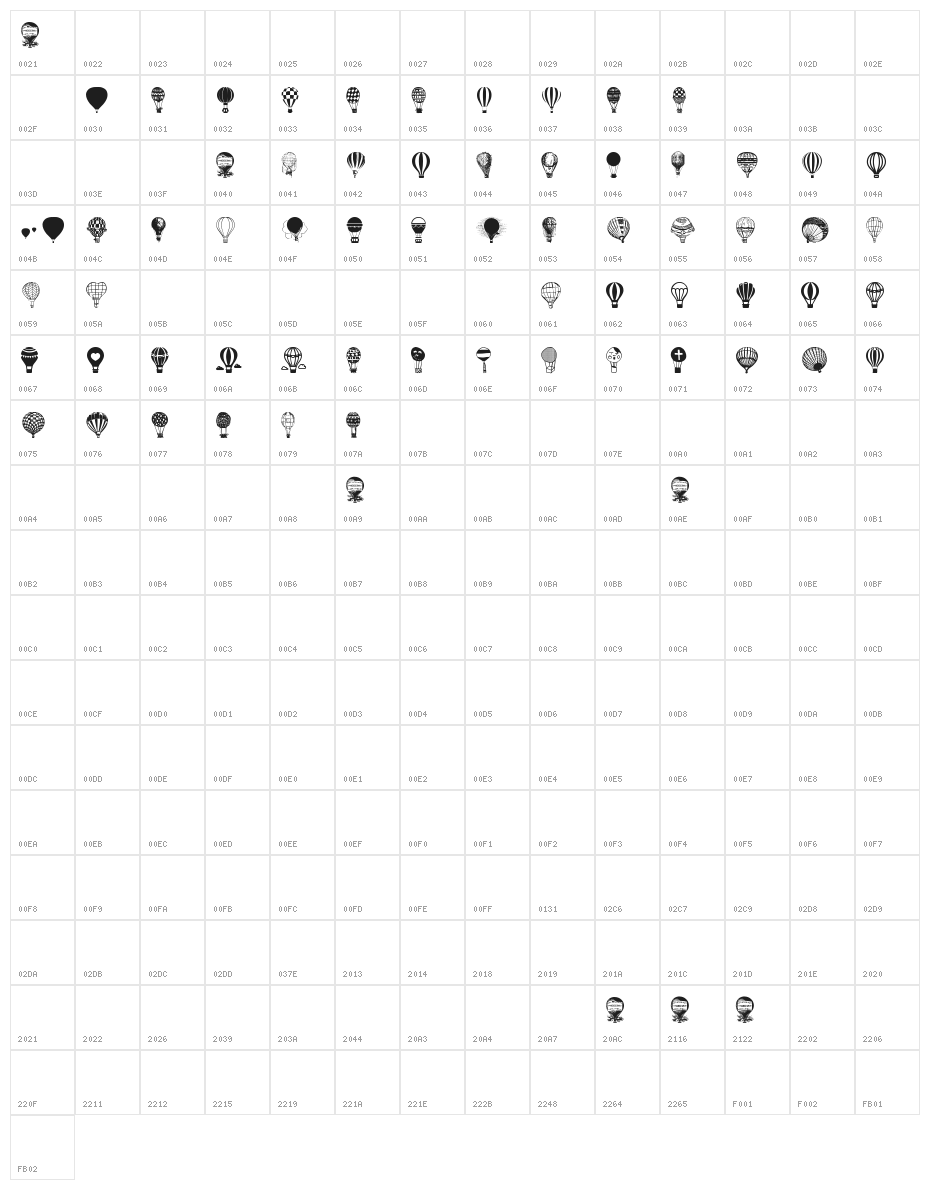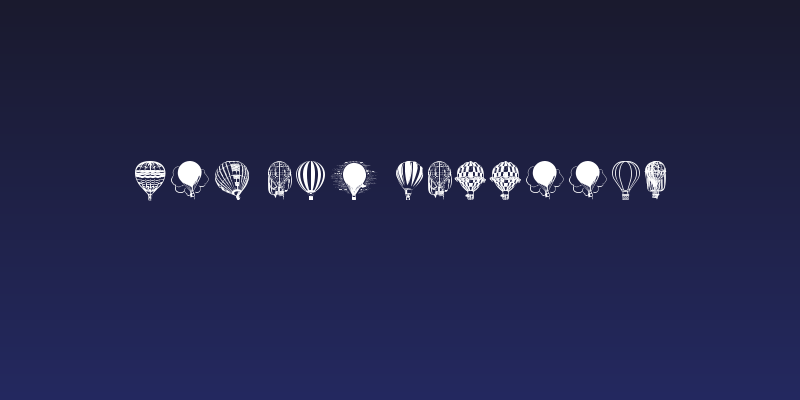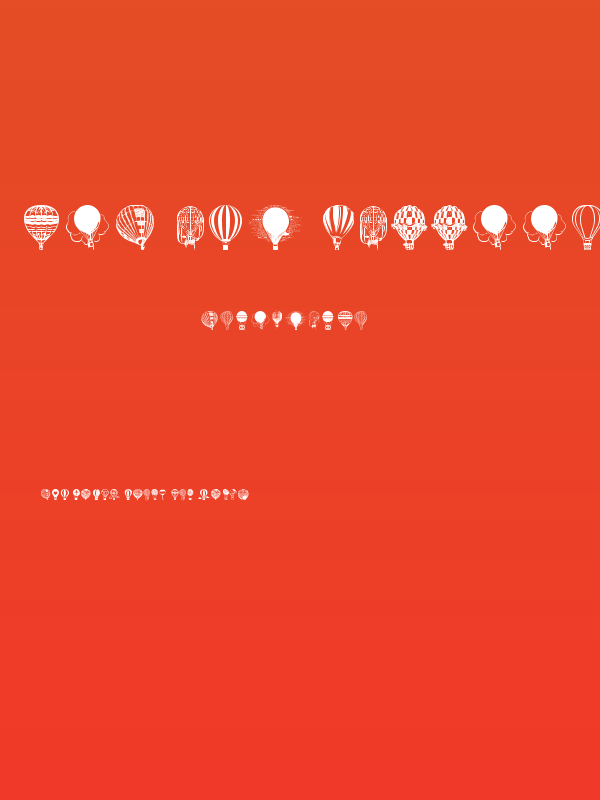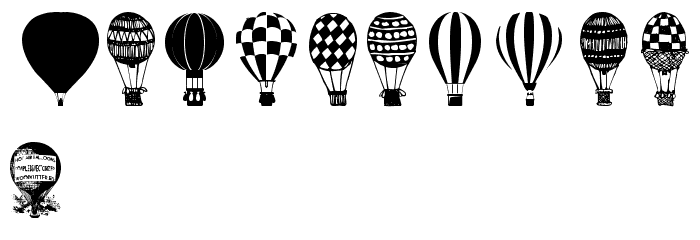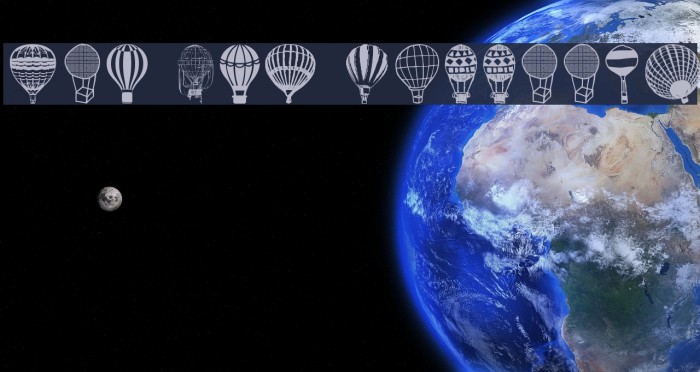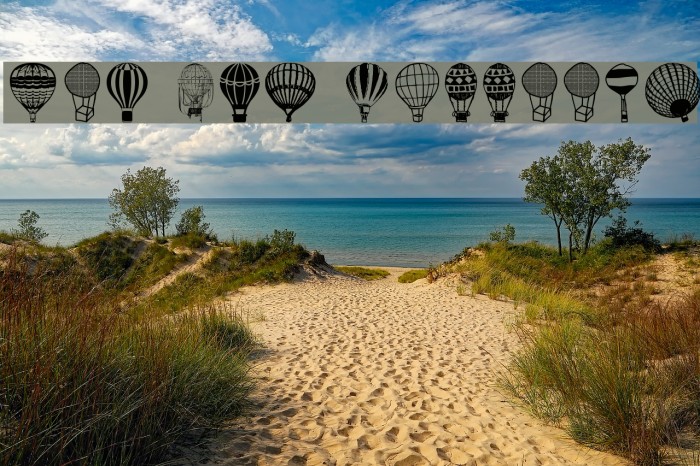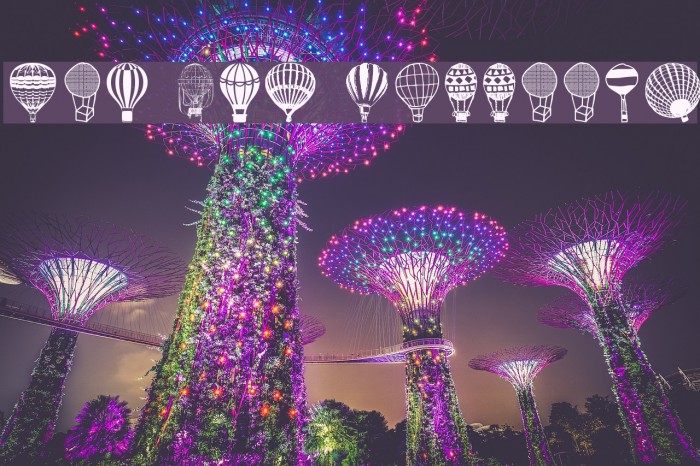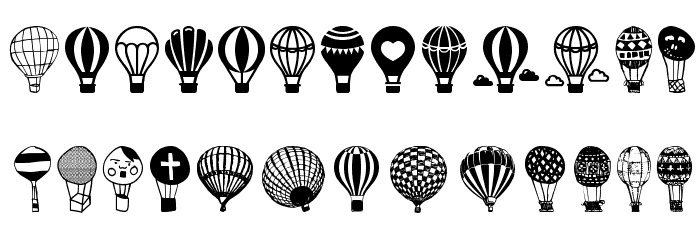
Hot Air Balloons Font
Hot Air Balloons Description
A playful and varied collection of hot air balloon illustrations, each with unique patterns, shapes, and decorative elements. The designs range from simple silhouettes to detailed line drawings, offering a whimsical and hand-drawn aesthetic. The set includes both filled and outlined styles, with some balloons featuring faces, symbols, or text.
| Overall Style | Decorative, Playful, Whimsical |
| Use Case | Illustrative elements, Themed graphics, Decorative accents |
| Proposed Projects | Children’s books, greeting cards, posters, educational materials, party invitations, scrapbooking, and decorative branding. |